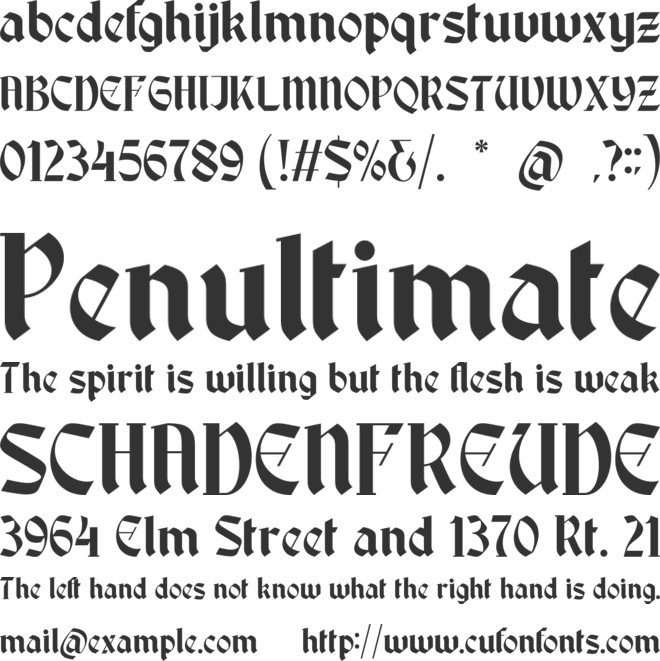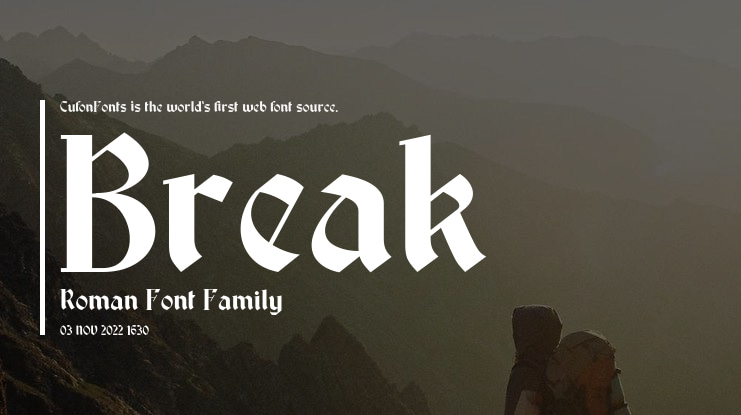
Break Roman Font
Break Roman Typeface
A Masterful Collision of Historical Blackletter and Contemporary Serif Drama
Step into the world of Break Roman, a highly stylized display typeface that boldly merges the gothic soul of blackletter tradition with the sharp precision of modern serif design. Developed by Alit Design Studio, this typeface isn’t just a font—it’s a typographic experience infused with epic drama, rebellious flair, and meticulous craftsmanship.